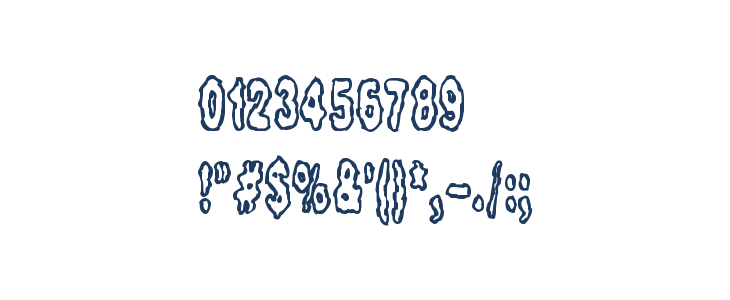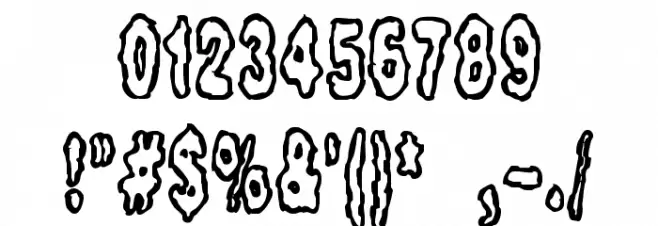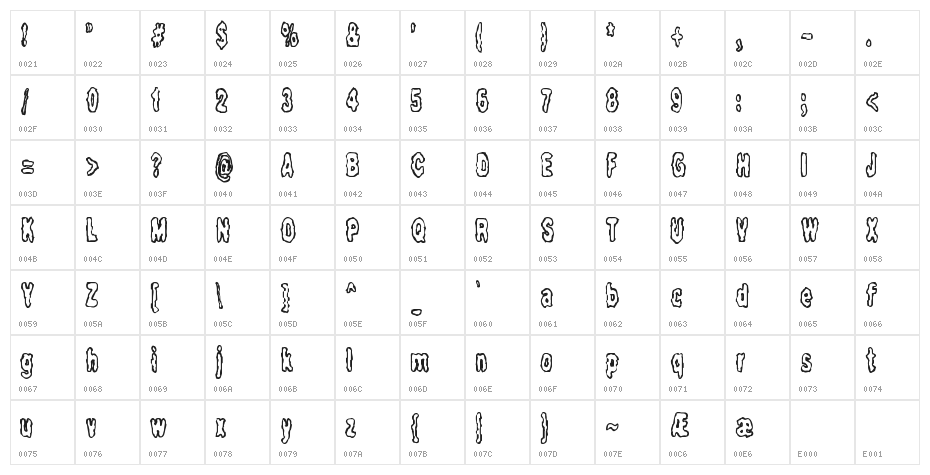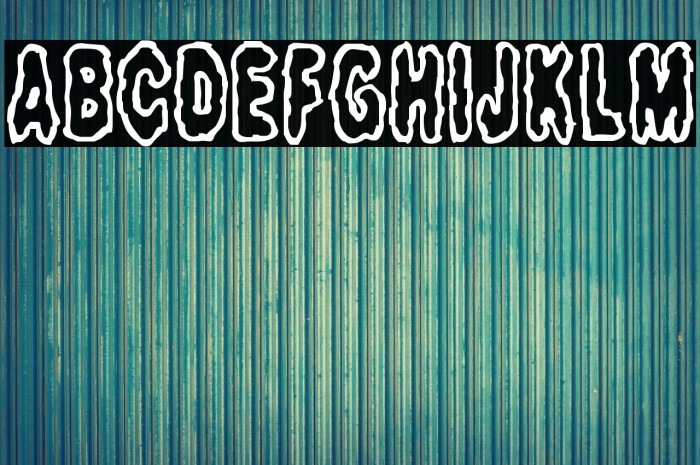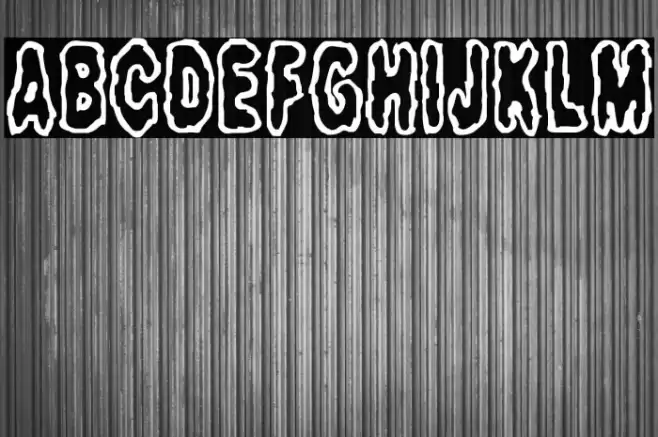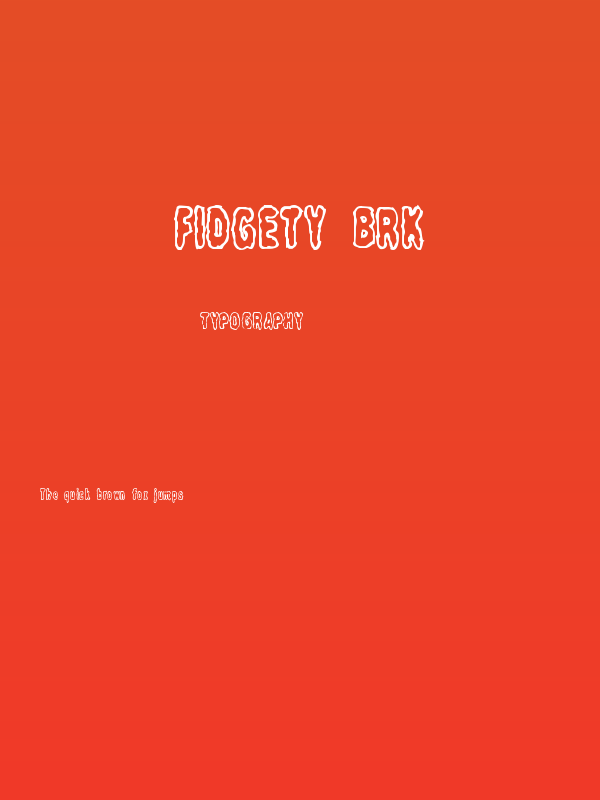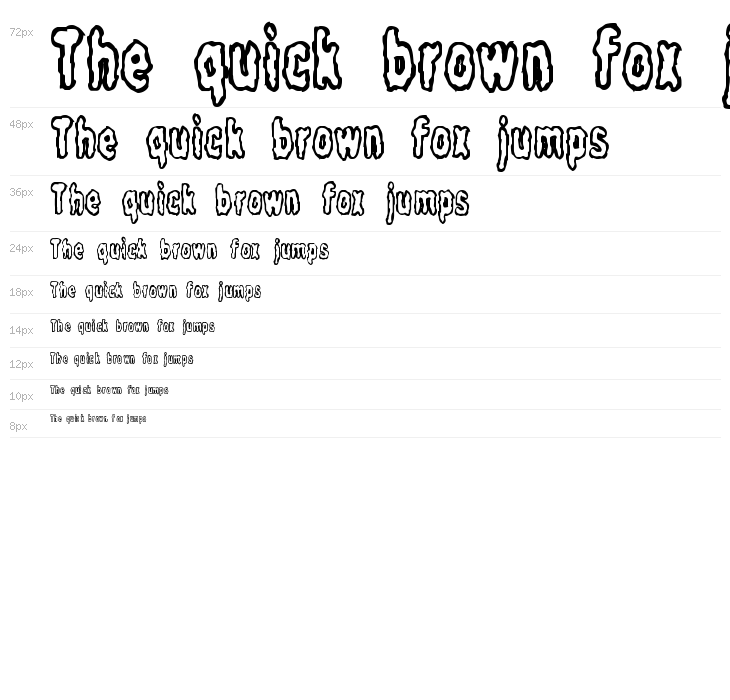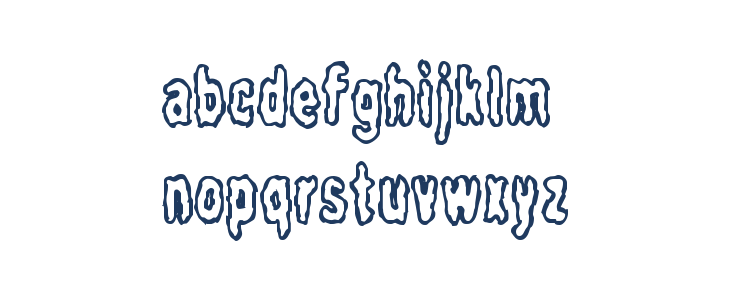
Fidgety BRK Font
Fidgety BRK Description
This playful and quirky font features a bold, wavy outline that gives each character a sense of movement and energy. The letters are slightly irregular, adding to the whimsical and informal feel. The font is highly decorative, with a hand-drawn appearance that makes it stand out. It includes a full set of uppercase and lowercase letters, numbers, and a variety of special characters. The unique style is reminiscent of doodles or graffiti, making it perfect for creative and fun projects.